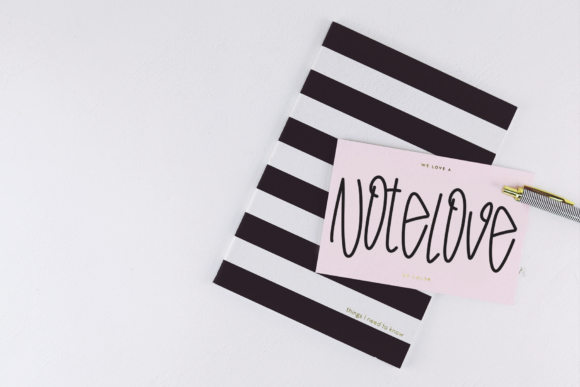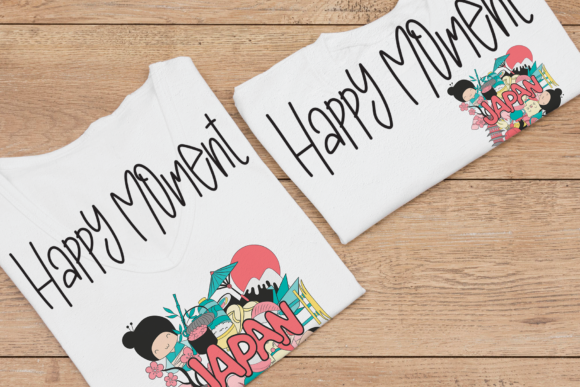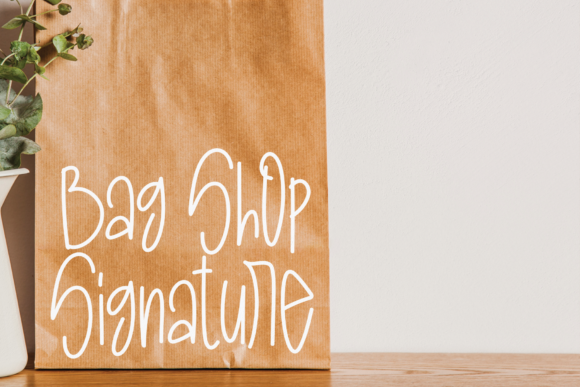
Blessed Font: The Perfect Handwritten Font for Your Creative Projects
Are you looking for a font that can add a relaxed touch to your designs? Look no further than Blessed Font, a simple, quirky, and adaptable handwritten font that’s perfect for a wide range of creative projects. In this article, we’ll take a closer look at the features and benefits of Blessed Font, and explore how it can be used to elevate your designs.
What is Blessed Font?
Blessed Font is a handwritten font that’s designed to bring a casual and informal vibe to your designs. Its unique and quirky style makes it stand out from more traditional fonts, and its adaptability ensures that it can be used in a variety of contexts. Whether you’re working on a branding project, a website design, or a craft project, Blessed Font is a great choice.
Key Features of Blessed Font
So what makes Blessed Font so special? Here are just a few of its key features:
- Simple and Quirky Design: Blessed Font has a simple, yet quirky design that’s perfect for adding a touch of personality to your designs.
- Informal Style: This font has an informal style that’s perfect for designs that need to feel relaxed and casual.
- Adaptable: Blessed Font is highly adaptable, making it suitable for use in a wide range of creative projects.
- Handwritten: This font has a beautiful, handwritten feel that’s perfect for adding a personal touch to your designs.
Benefits of Using Blessed Font
So why should you choose Blessed Font for your next project? Here are just a few of the benefits of using this amazing font:
- Adds a Relaxed Touch: Blessed Font is perfect for adding a relaxed touch to your designs. Its informal style and casual vibe make it ideal for projects that need to feel laid-back and friendly.
- Stand Out from the Crowd: This font’s unique and quirky design makes it stand out from more traditional fonts. Use it to add some personality to your designs and make them more engaging.
- Versatile: Blessed Font is highly versatile, making it suitable for use in a wide range of creative projects. From branding and website design to crafting and DIY projects, this font can be used in many different contexts.
How to Use Blessed Font in Your Designs
So how can you use Blessed Font in your designs? Here are a few ideas to get you started:
- Branding Projects: Use Blessed Font to create a unique and memorable brand identity. Its informal style and casual vibe make it perfect for lifestyle brands, fashion brands, and more.
- Website Design: Add a relaxed touch to your website design with Blessed Font. Use it for headings, titles, and other design elements to create a friendly and approachable feel.
- Crafting and DIY Projects: Blessed Font is perfect for crafting and DIY projects, such as making signs, labels, and other decorative items.
In conclusion, Blessed Font is a simple, quirky, and adaptable handwritten font that’s perfect for adding a relaxed touch to your designs. Its informal style and casual vibe make it ideal for a wide range of creative projects, from branding and website design to crafting and DIY projects. With its unique and quirky design, Blessed Font is sure to stand out from the crowd and add some personality to your designs.